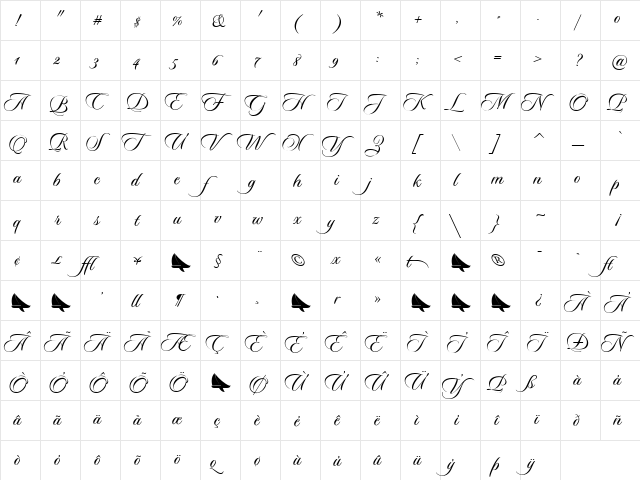
Sloop ScriptOne Regular
Design Context for Sloop ScriptOne Typeface
Sloop ScriptOne flows with the natural rhythm of handwritten lettering, making it ideal for designs that call for warmth and personal expression.
Font Pairing: Combine Sloop ScriptOne with a simple geometric sans for maximum contrast — the tension between flowing curves and clean structure is a classic typographic pairing.
Pro Tip: Use Sloop ScriptOne for short runs of text — names, titles, or taglines. Extended body copy in script faces tires the eye quickly.